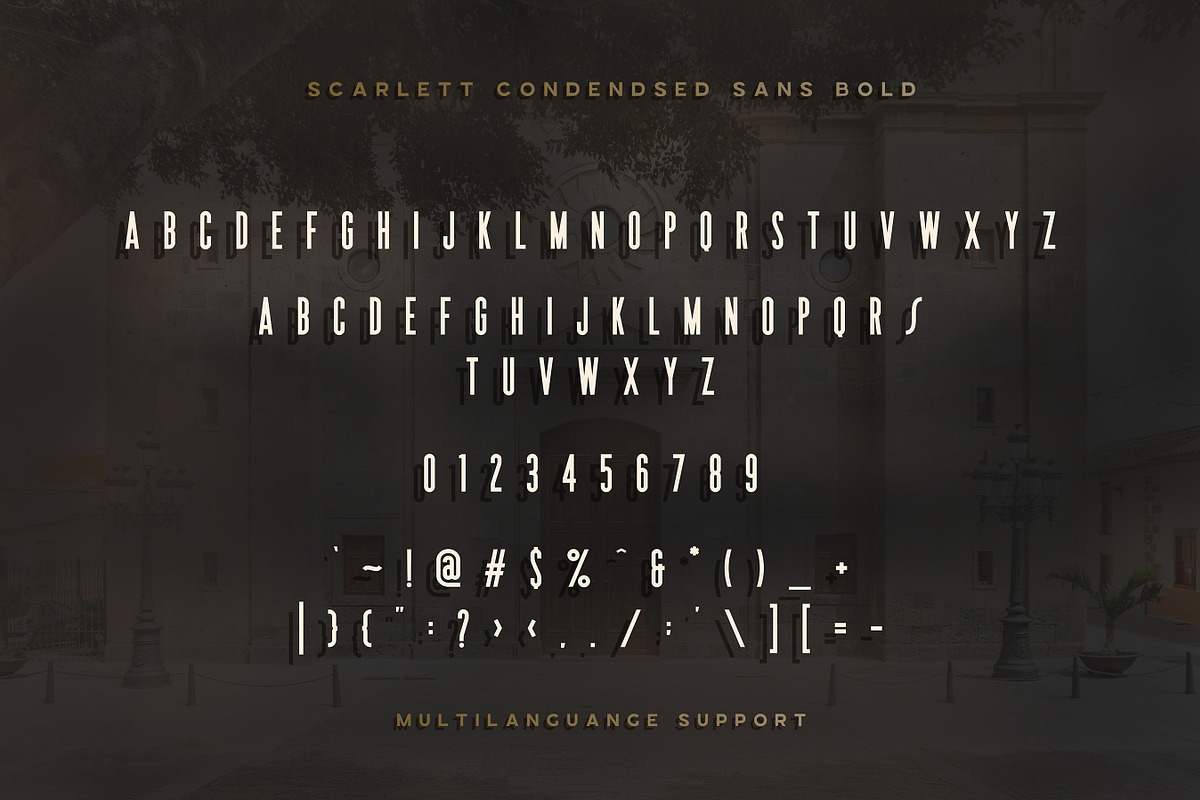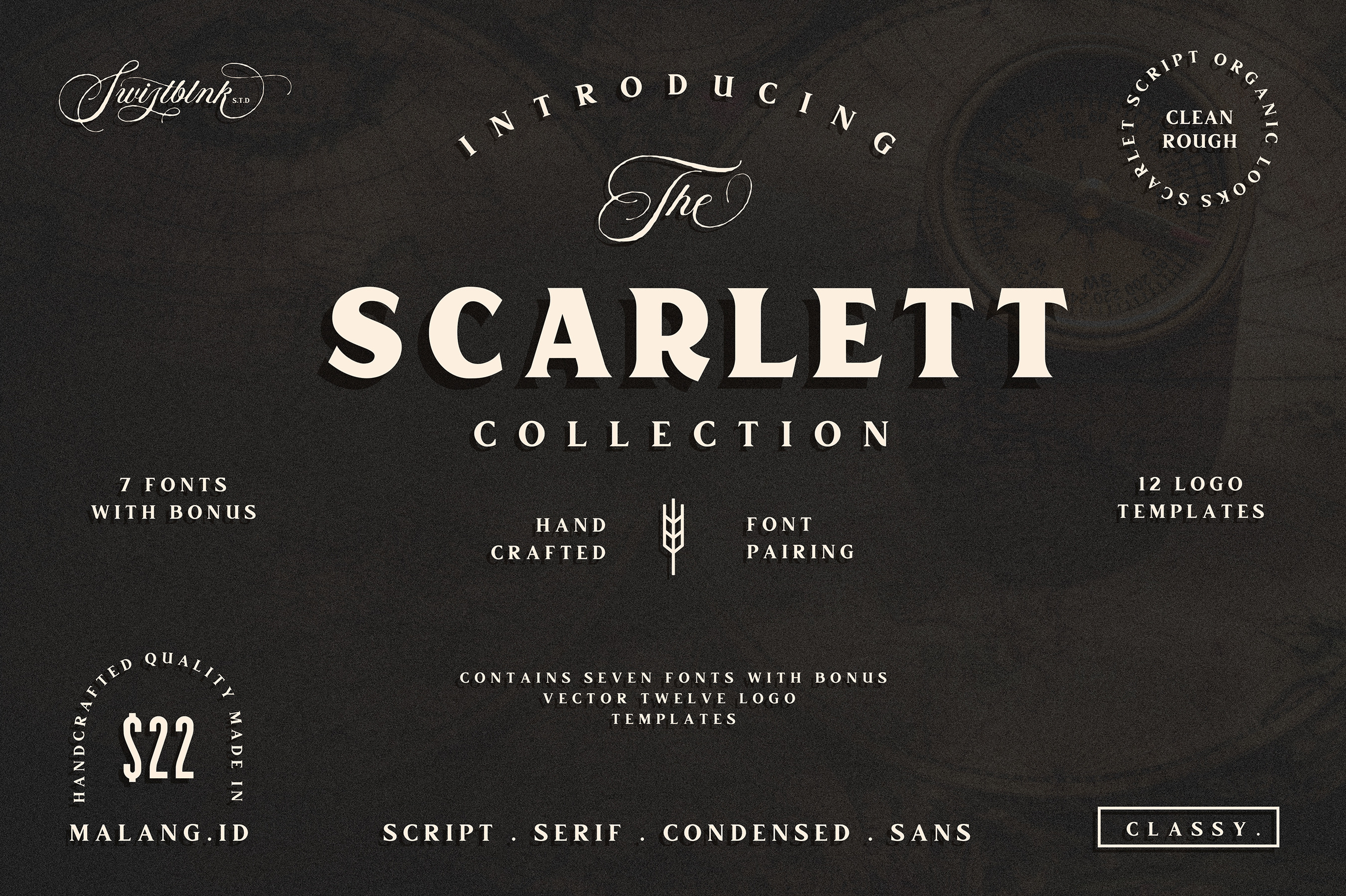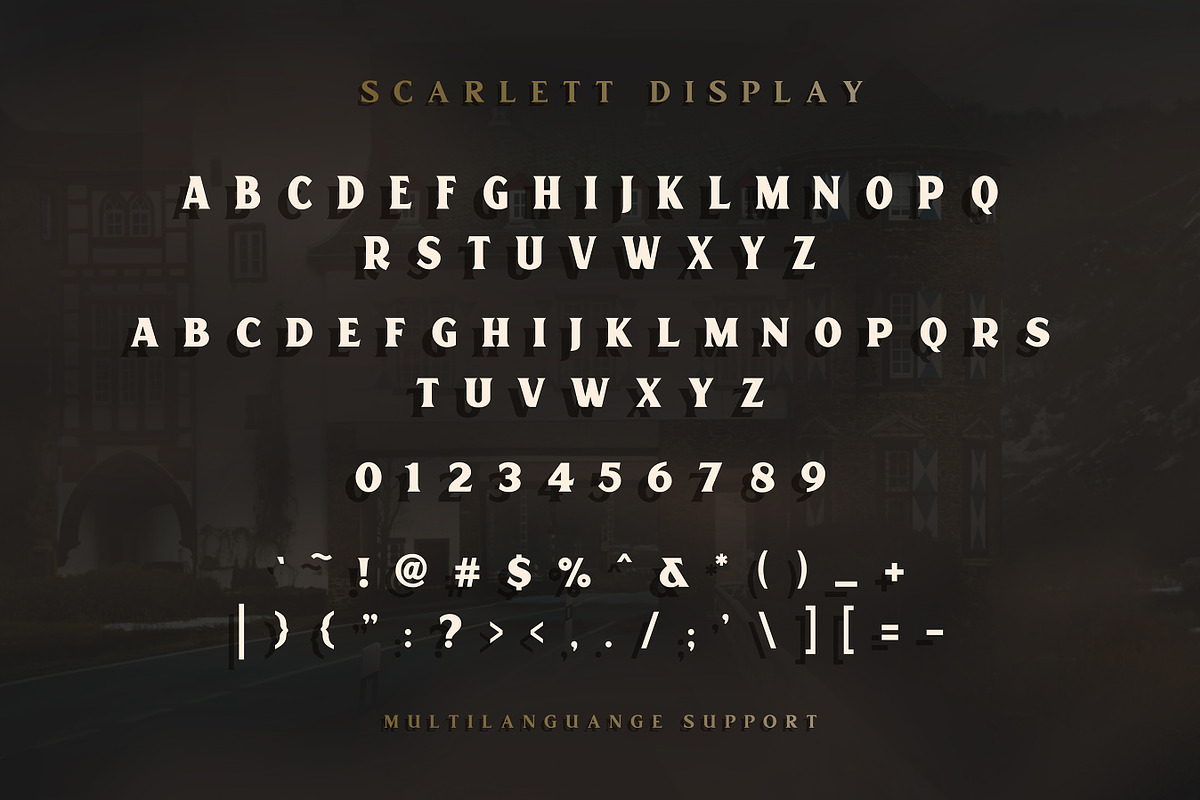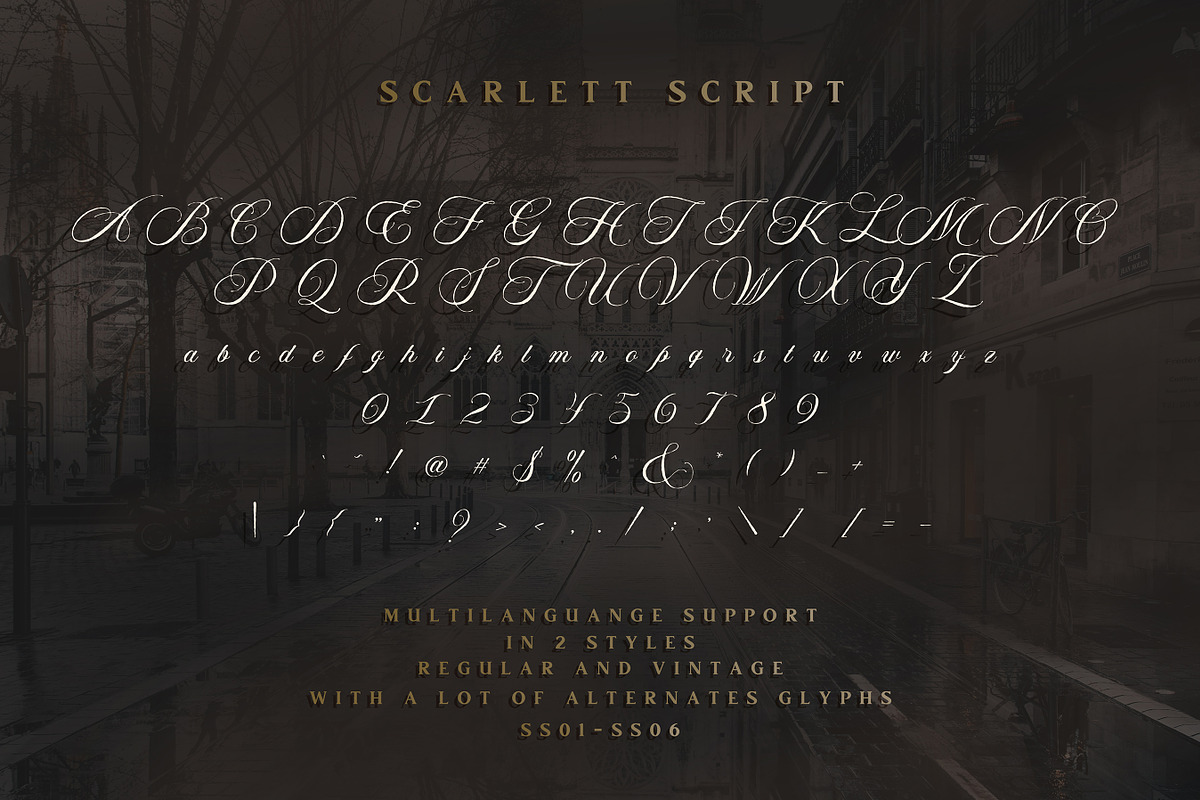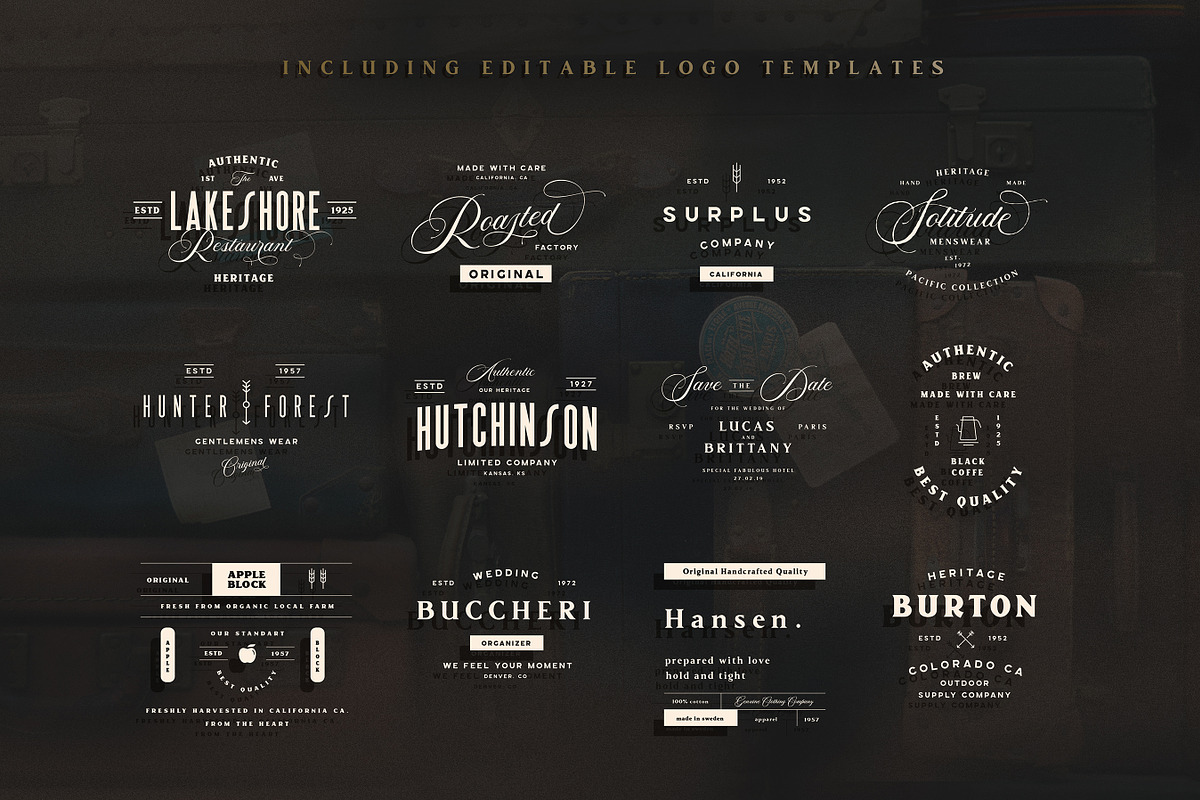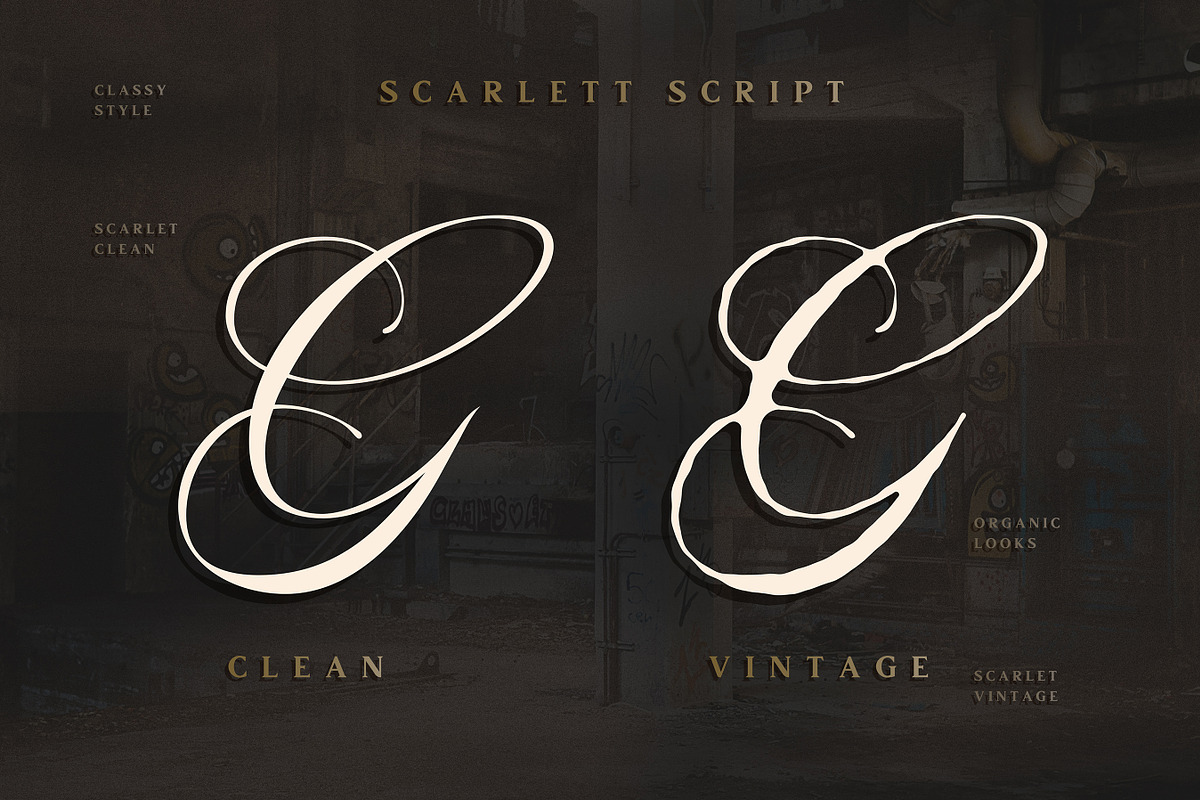
Scarlett Font Bundle
Scarlett Font Bundle !! by Swistblnk Std
This Font Collection contains 7 Fonts named Scarlett Family with bonus vector Logo Templates. this collection perfectly paired for logo, label , packaging or headlines with modern classy looks.
Here's what's included :
- Scarlett Script
- Scarlett Script Vintage
- Scarlett Sans
- Scarlett Serif
- Scarlett Display
- Scarlett Condensed Sans
- Scarlett Condensed Sans Bold
- 12 Editable Logo Templates
- Lowercase ( except Scarlett Sans )
- Accents ( Multilingual Characters )
- Stylistic Set 01-06 for Scarlett Script
- Suitable for Headlines, Logotypes, Signs, Label, Posters, Letterhead, T-Shirt and many more.